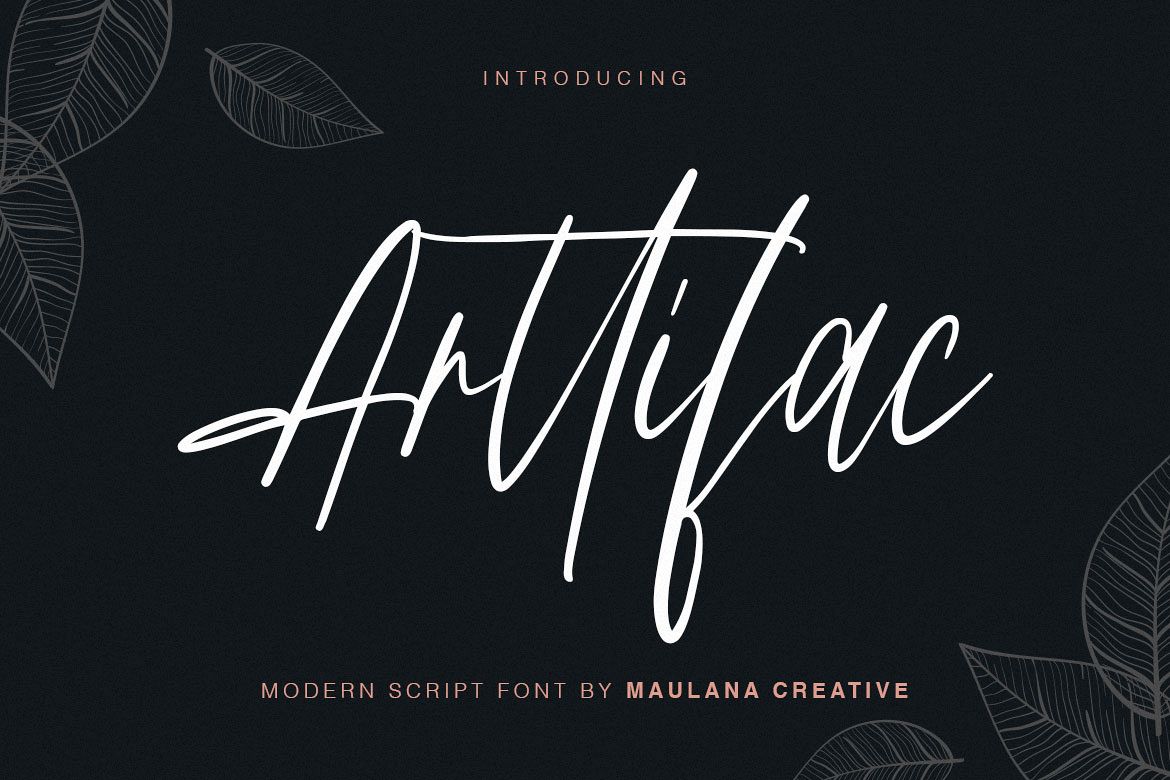
Give your designs an authentic handcrafted feel. "Arttifac" is perfectly suited to signature, stationery, logo, typography quotes, magazine or book cover, website header, clothing, branding, packaging design and more. Include Ligatures.